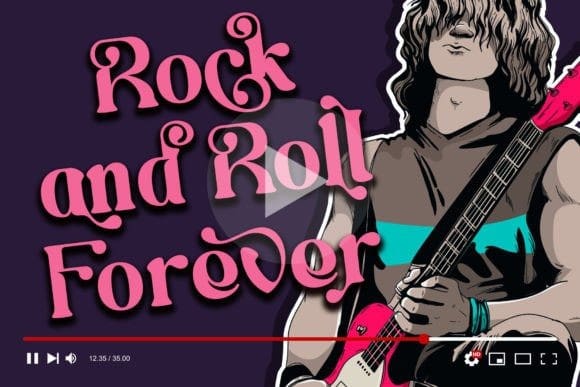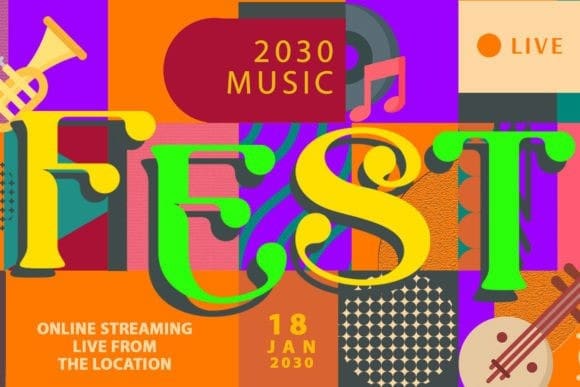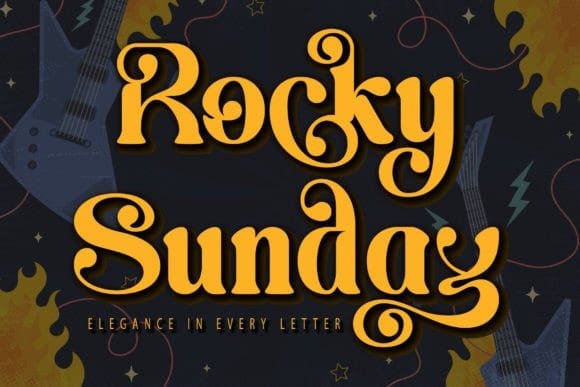
Rocky Sunday Font
Rocky Sunday Font, a serif font that seamlessly blends bold sophistication with unique character forms. Perfect for enhancing various design projects, from eye-catching product packaging to refined branding, this font’s PUA encoding ensures easy access to a wide range of distinctive glyphs and swashes, promising exceptional results for your creative endeavors. Dive into the elegance of Rocky Sunday and elevate your designs with its striking presence and timeless appeal.